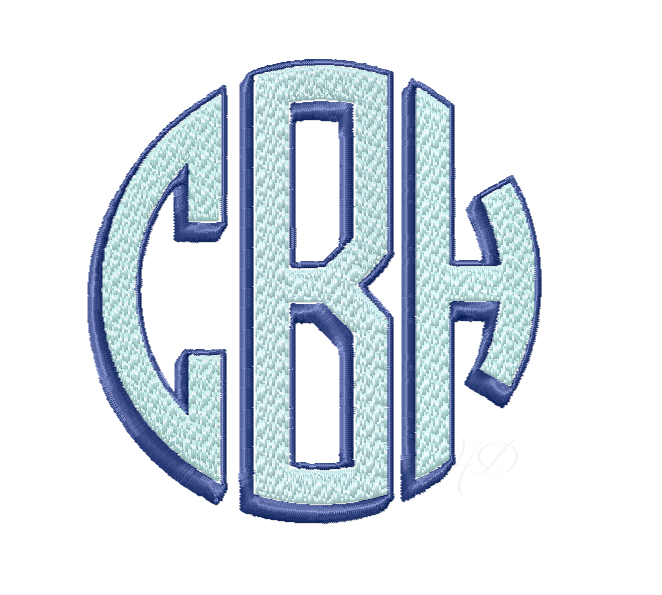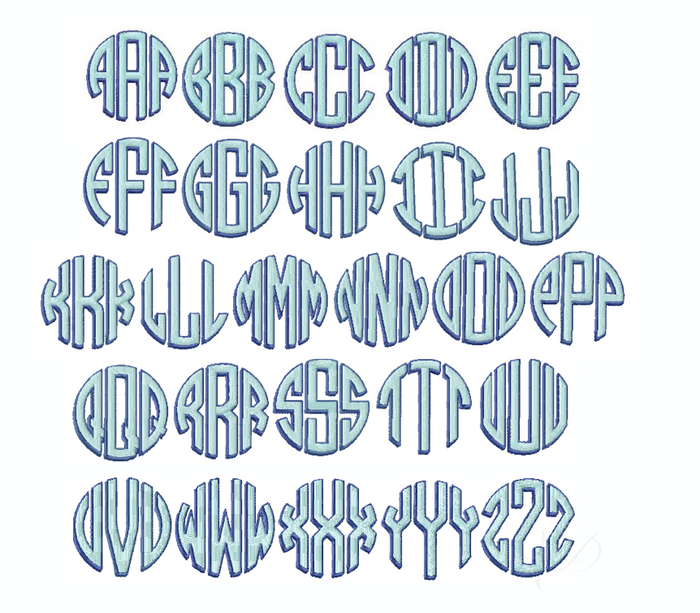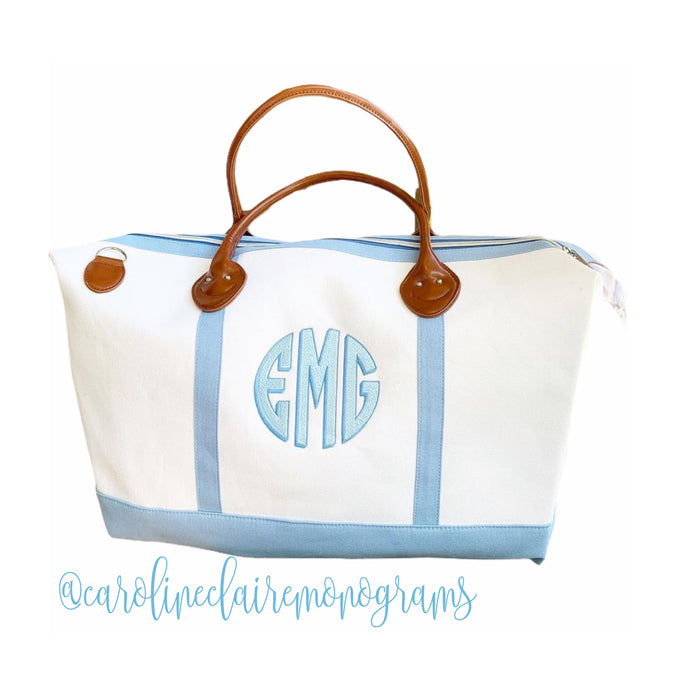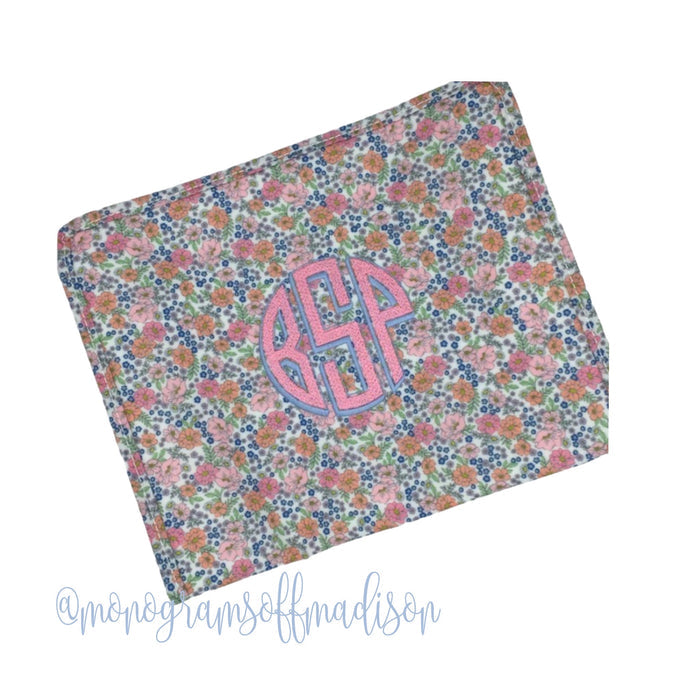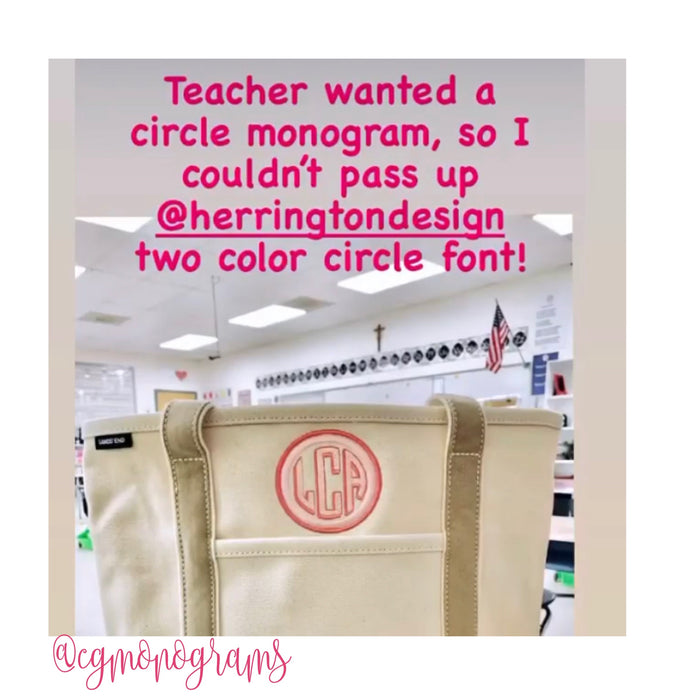
Circle Shadow Drop Monogram Embroidery Font for creative design.
Circle Shadow Drop Monogram Embroidery Font
Transform your crafting projects with the Circle Shadow Drop Monogram Embroidery Font. This versatile two-color embroidery font features beautiful embroidery fill combined with contrasting satin stitches, resulting in a stunning visual effect. With four sizes included—2", 2.5", 3", and 3.5"—this font fits perfectly into a 4x4 hoop or smaller, making it ideal for a variety of monogramming applications.